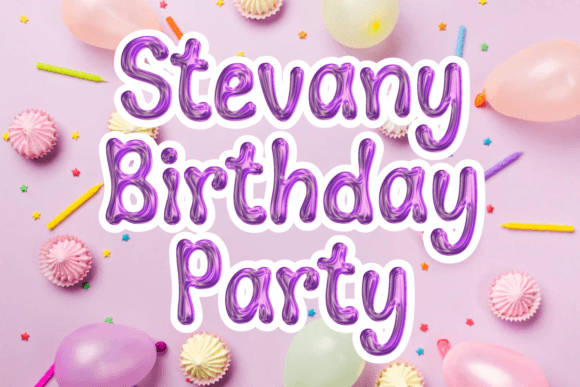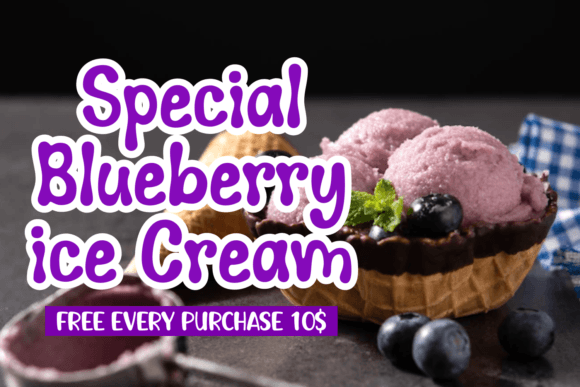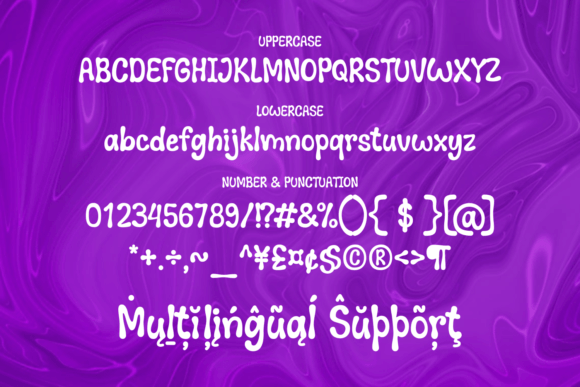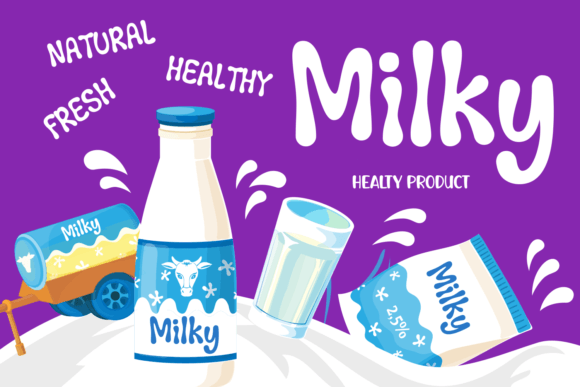
Introduction to Mealty Font
Have you ever stared at a blank canvas, waiting for inspiration to strike? For designers, those moments can be a thrill and a challenge. But what if you had the perfect tool to spark your creativity? That’s where Mealty Font comes in – a cool and unique display font that’s about to take your design projects to the next level.
Whether you’re working on a creative project that requires a touch of elegance or a bold statement, Mealty Font has got you covered. Its high-quality design makes it an excellent addition to any font library, and the best part? It’s available for a free download, giving you endless possibilities to experiment and explore.
As a valuable design resource, Mealty Font offers a transparent background that allows you to customize and manipulate it to fit your vision. With its versatility and unique style, it’s no wonder why designers are raving about this incredible font. Get ready to elevate your designs with the Mealty Font and unlock a world of creative possibilities.
Key Features of Mealty Font
- High-quality design resource for creative projects, offering a unique and elegant style.
- Features a large character set, including uppercase and lowercase letters, numbers, and punctuation marks.
- Designed at a high resolution of 300 DPI, ensuring crisp and clear text display in print and digital media.
- Perfect for use in logo design, branding, typography, and other creative projects where a sophisticated font is required.
Honest Review: Mealty Font
As a designer, I’m always on the lookout for high-quality design resources that can elevate my creative projects. Recently, I stumbled upon the Mealty Font, and I must say, it’s been a game-changer for me.
What works well about Mealty Font is its versatility. It’s perfect for projects that require a clean and modern look, and its transparent background makes it super easy to customize and pair with other design elements. I’ve used it for everything from logos to typography-based posters, and it always looks great.
- ✨ Clean and modern design
- ✨ High-quality glyphs and characters
However, I do have to mention a few limitations. The font is not suitable for projects that require a lot of bold or dramatic text. It’s best used for clean, elegant designs.
Overall, I’m really impressed with the Mealty Font. It’s a fantastic design resource that’s perfect for any creative project. I highly recommend it to designers of all levels.
Mealty Font
To get the most out of Mealty Font, use it with a transparent background for a clean and modern design. Experiment with different font sizes and colors to enhance your creative project.
Mealty Font is perfect for graphic design, digital art, and creative writing projects. Use it for logos, posters, business cards, and more. With its high-quality design, Mealty Font is a great addition to any creative project.
Lato is a modern sans-serif font that is perfect for designers who want a high-quality design resource with a transparent background. It features a clean and elegant design that is suitable for creative projects, including logos, headings, and body text.